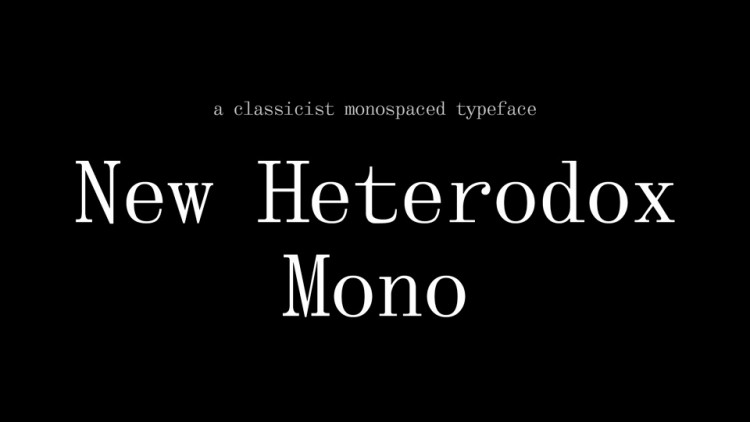
New Heterodox Mono Serif Font
This is a classy and elegant serif typeface based on Alexey Kryukov’s Old Standard TT. The design has been slightly modified from Old Standard to adapt to monospace – especially the proportion of the letters, in this monospaced version, significantly deviate from the original. The letter ‘f’ and ‘t’ have a very unorthodoxical look with respect to the historical norm.
The typeface, at the current stage, is pretty usable for the purpose of programming, especially if you only need Western European glyphs.